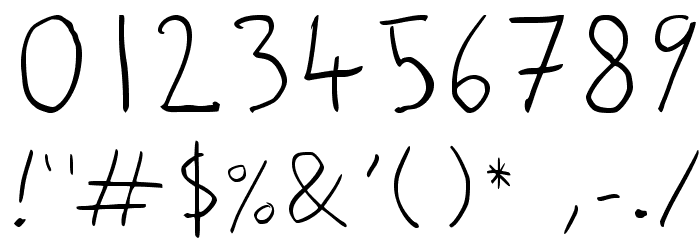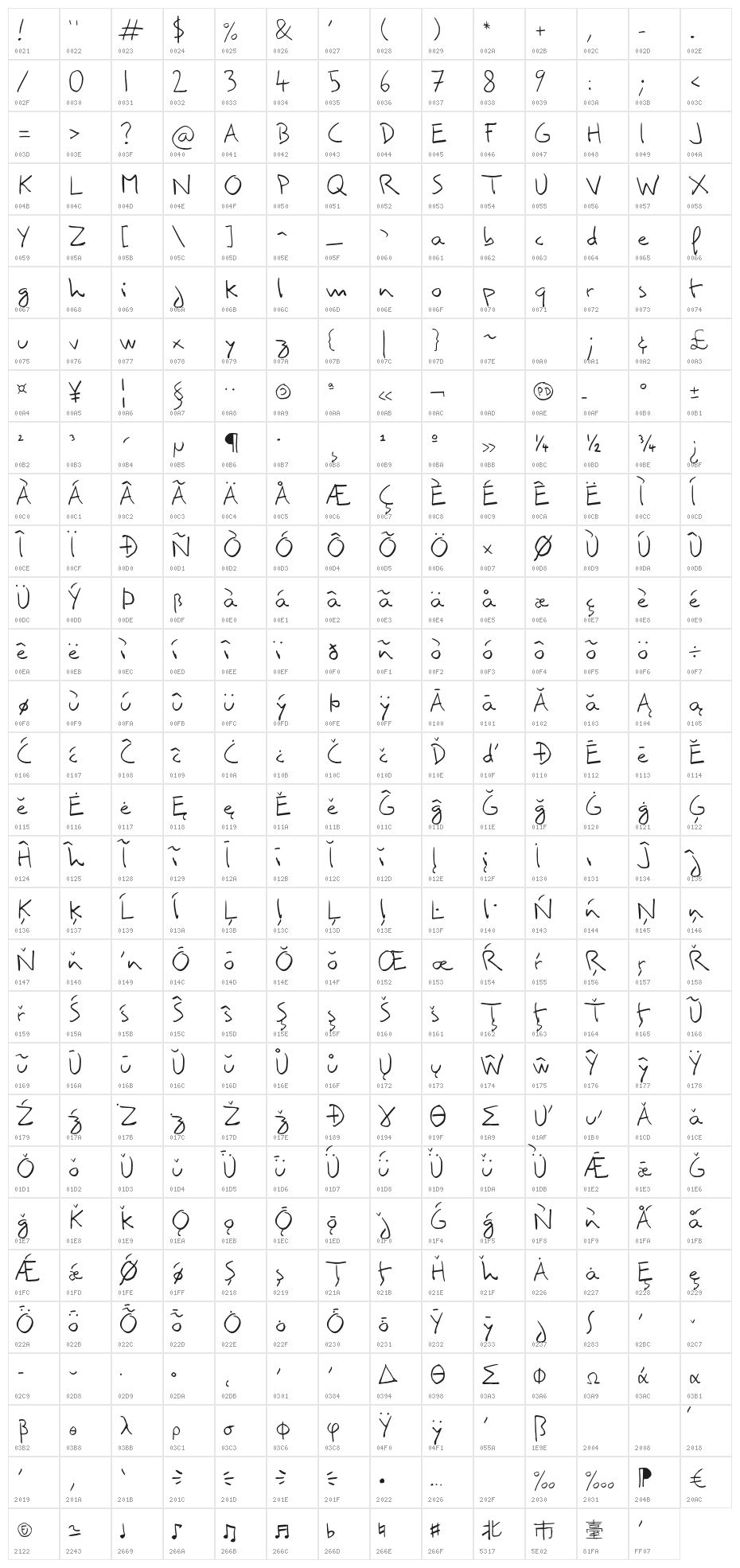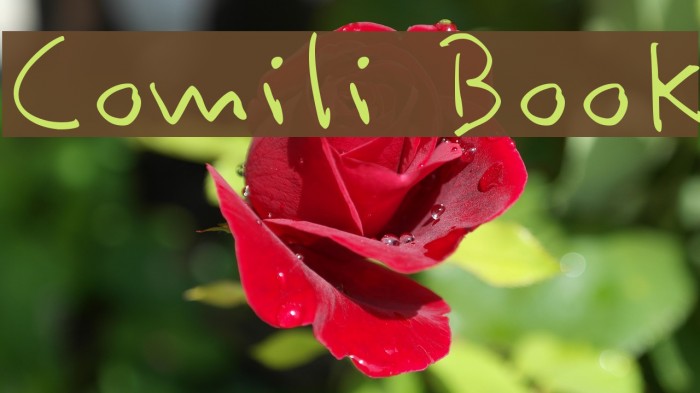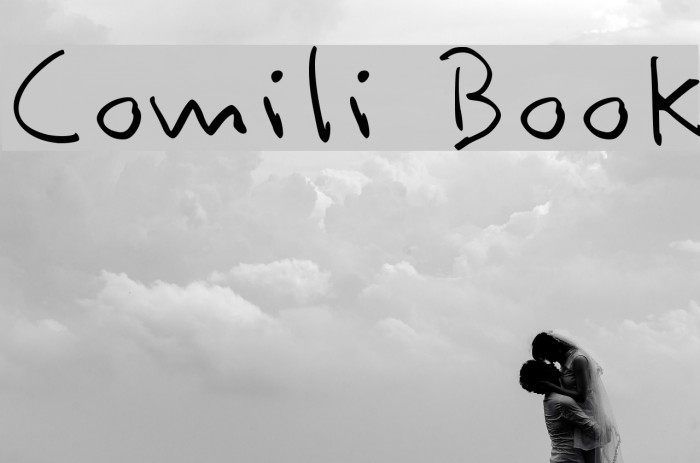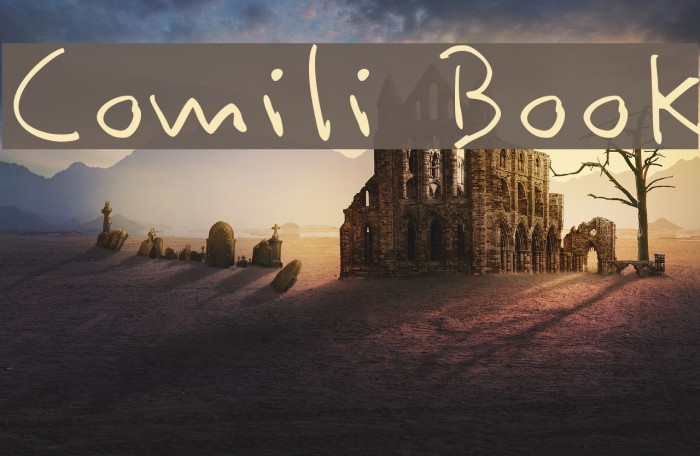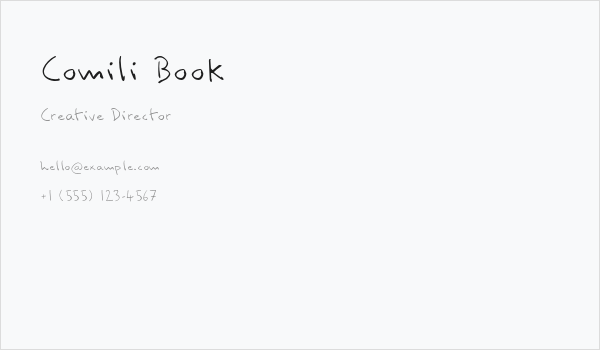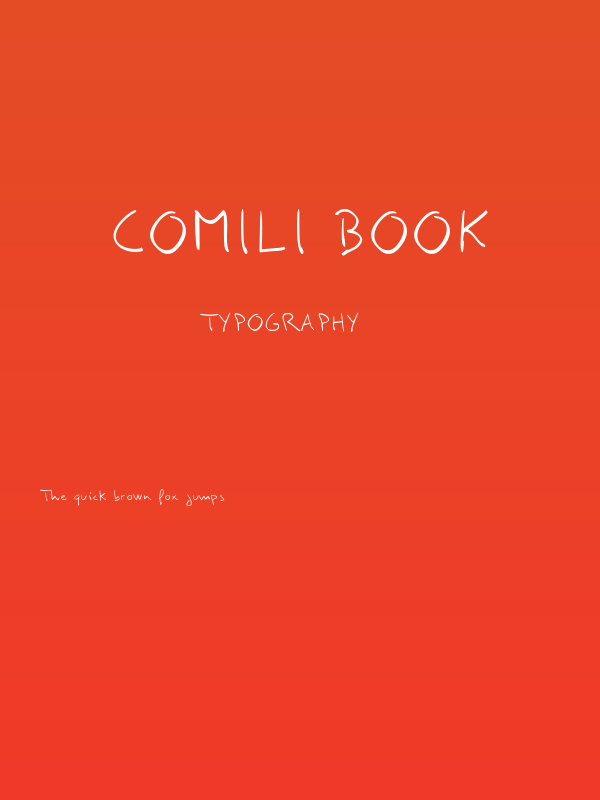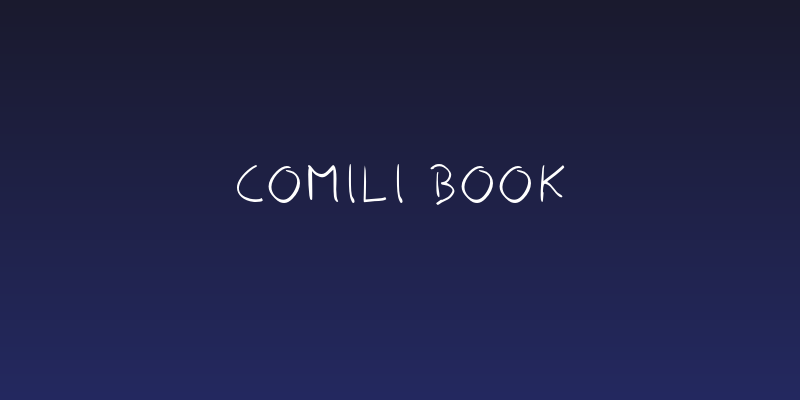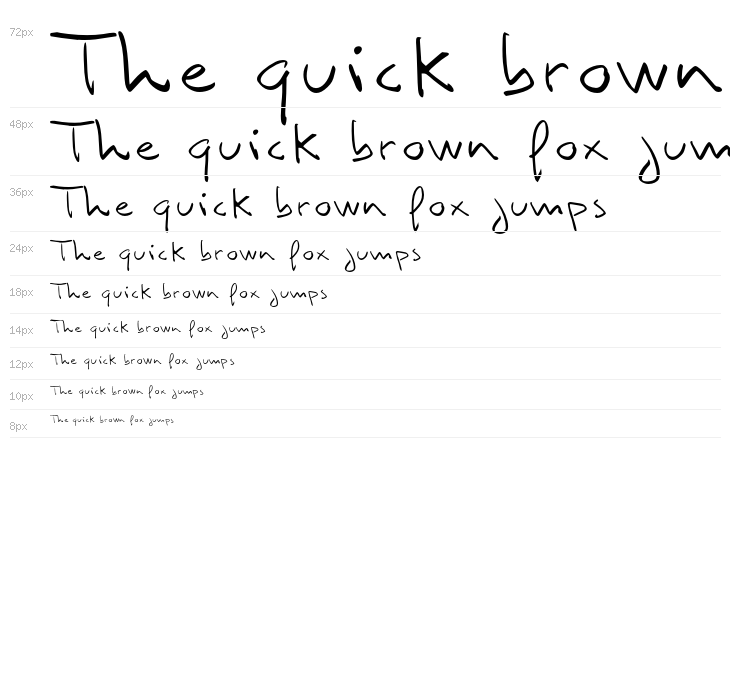
Comili Book Font
Comili Book Description
This font exhibits a casual, handwritten style with a playful and informal appearance. The characters are slightly irregular, giving it a personal and approachable feel. The strokes are smooth and consistent, with a slight variation in thickness that adds to its charm. The uppercase letters are bold and prominent, while the lowercase letters maintain a consistent flow. The numerals are clear and legible, complementing the overall style. Special characters are well-integrated, maintaining the font's cohesive look. This font is versatile, suitable for projects that require a personal touch.
| Use Case | Headlines, Informal text, Personal projects |
| Proposed Projects | Ideal for greeting cards, personal invitations, casual branding, and social media graphics. |